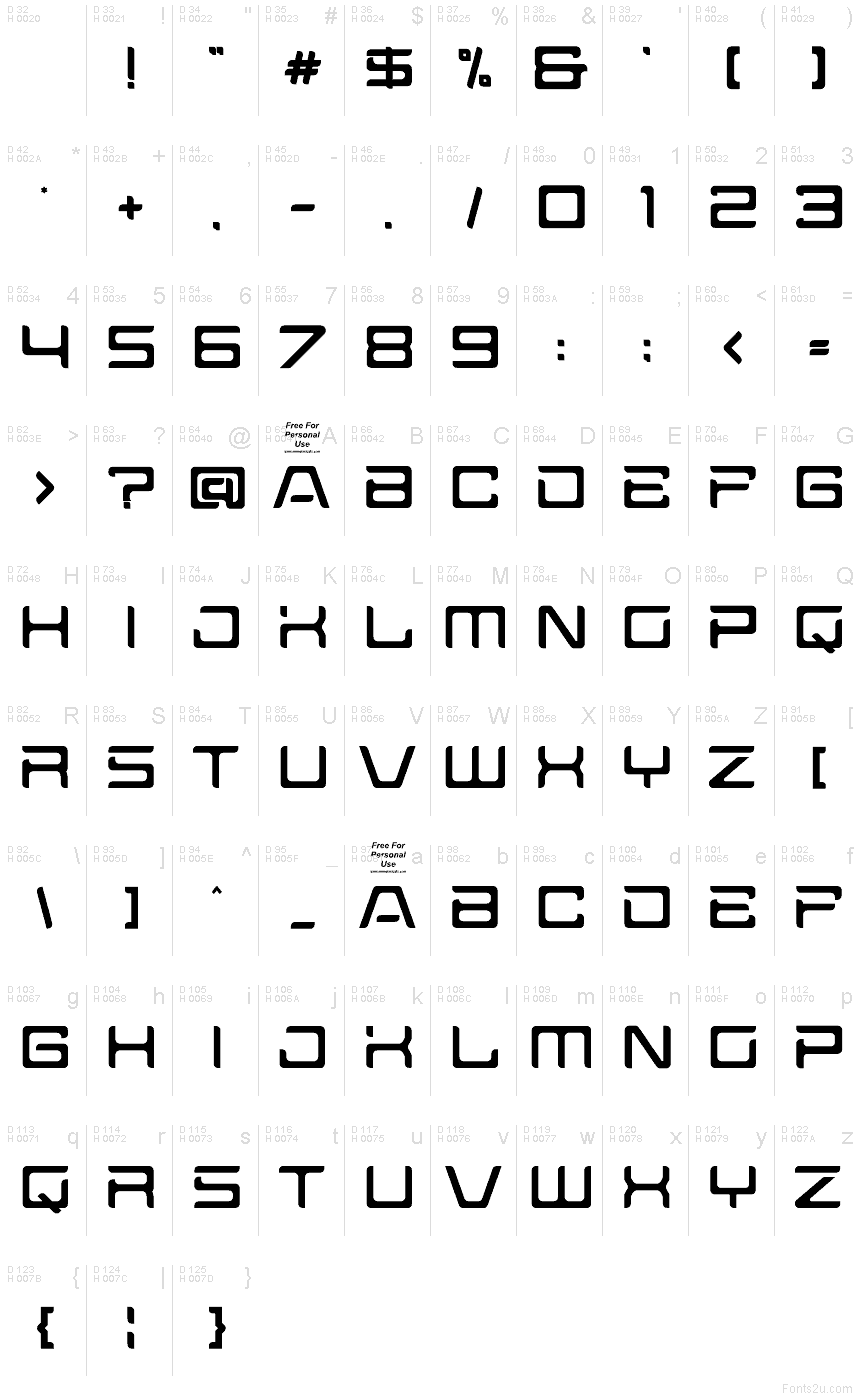
FOGARDE
Fogarde font by Emerdia Studio is a free futuristic display font. Built from rounded, squared-off shapes with sleek cut-ins, it blends sci‑fi circuitry with a friendly, pillowy heft. The letters feel molded—smooth edges, sturdy weight—giving headlines a high-tech snap without looking cold or mechanical.
Using Fogarde, you’ll get bold, legible impact for game titles, e‑sports logos, sci‑fi posters, tech event branding, gadget packaging, and YouTube thumbnails. Its modular rhythm holds together at large sizes and still reads cleanly in short subheads. This free font pairs nicely with a light geometric sans for body copy; try generous size with slightly tight tracking to amp up the futuristic rhythm.